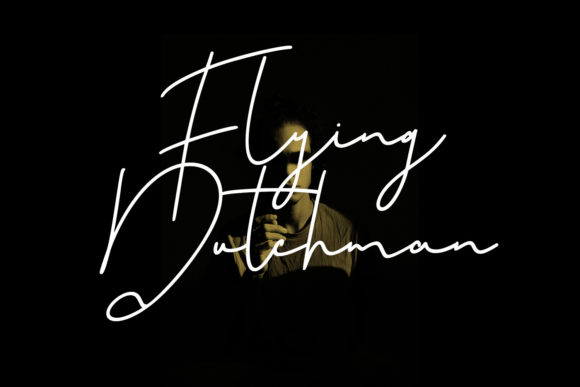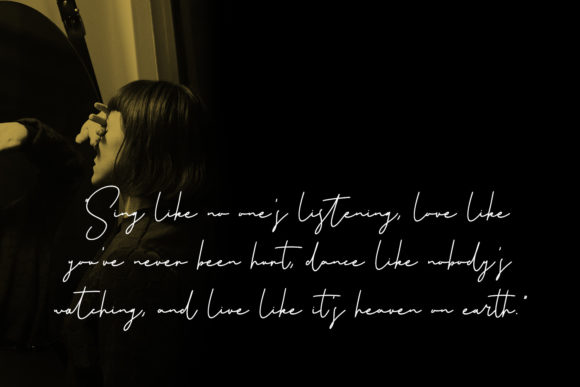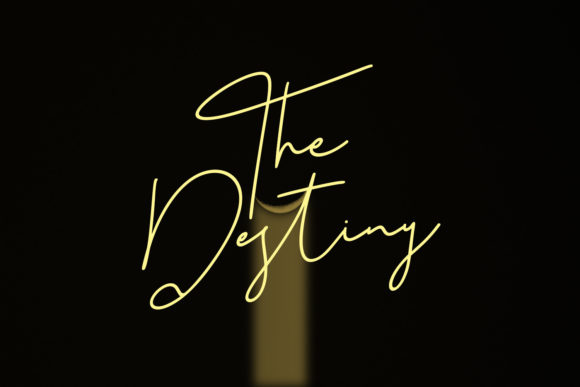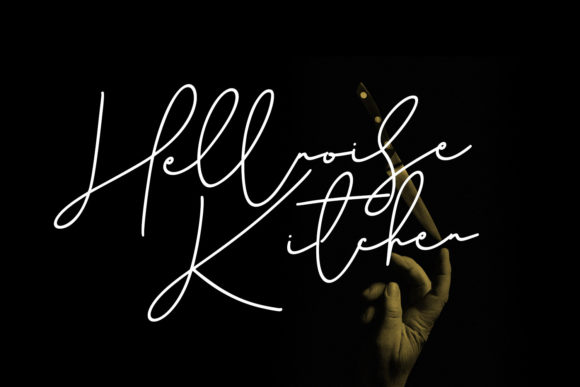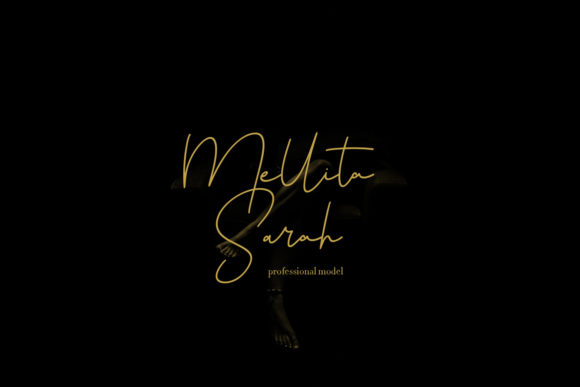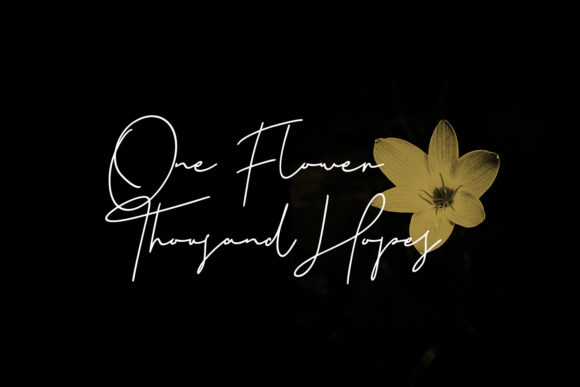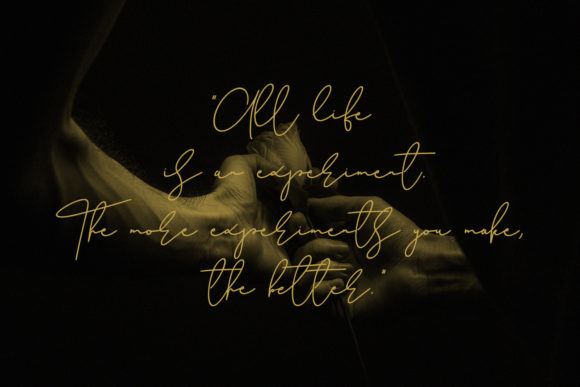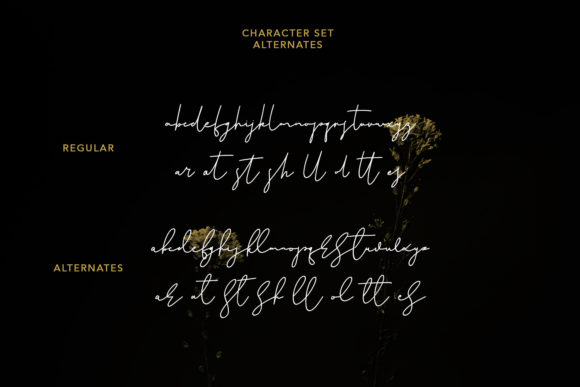
Plastikcycle Font
About Plastikcycle Font
Plastikcycle is a casual script font with clean regular contrast strokes to give your creations the exquisite look they deserve! Fun and beautifully flowing, this typeface is perfect for watermarks, logos, short texts, and more!